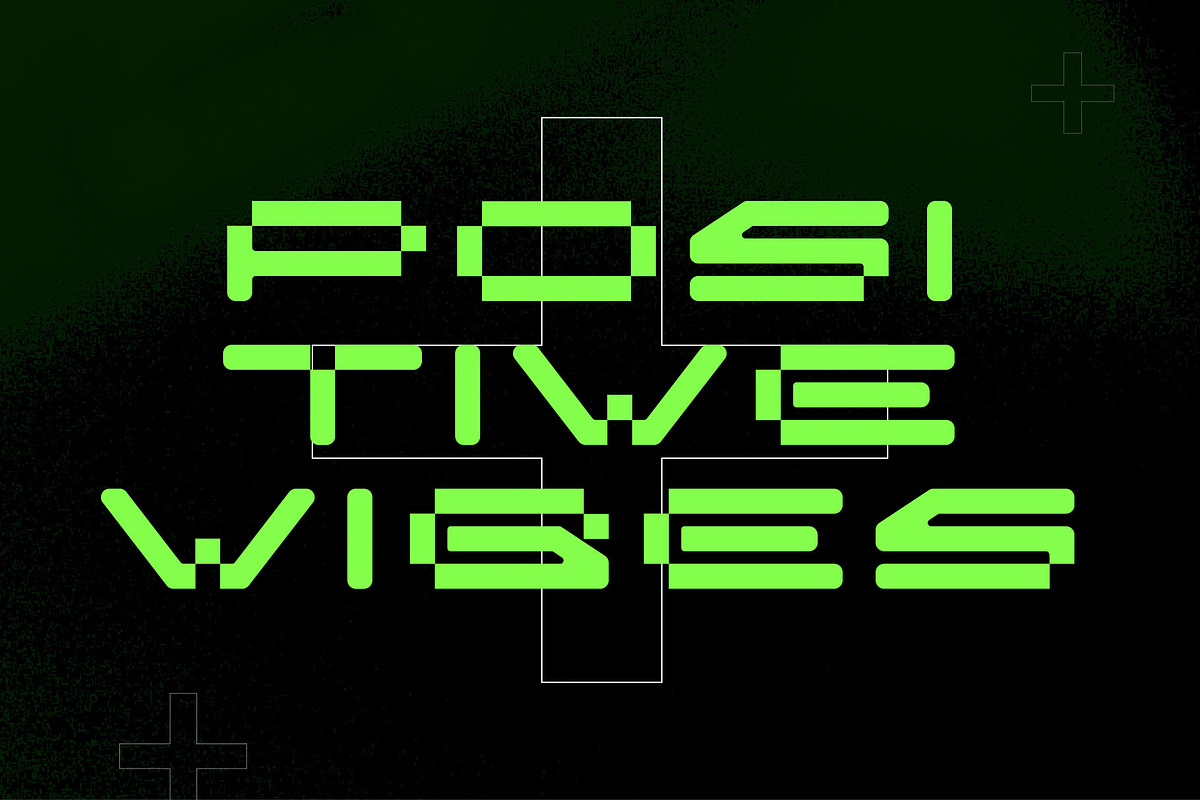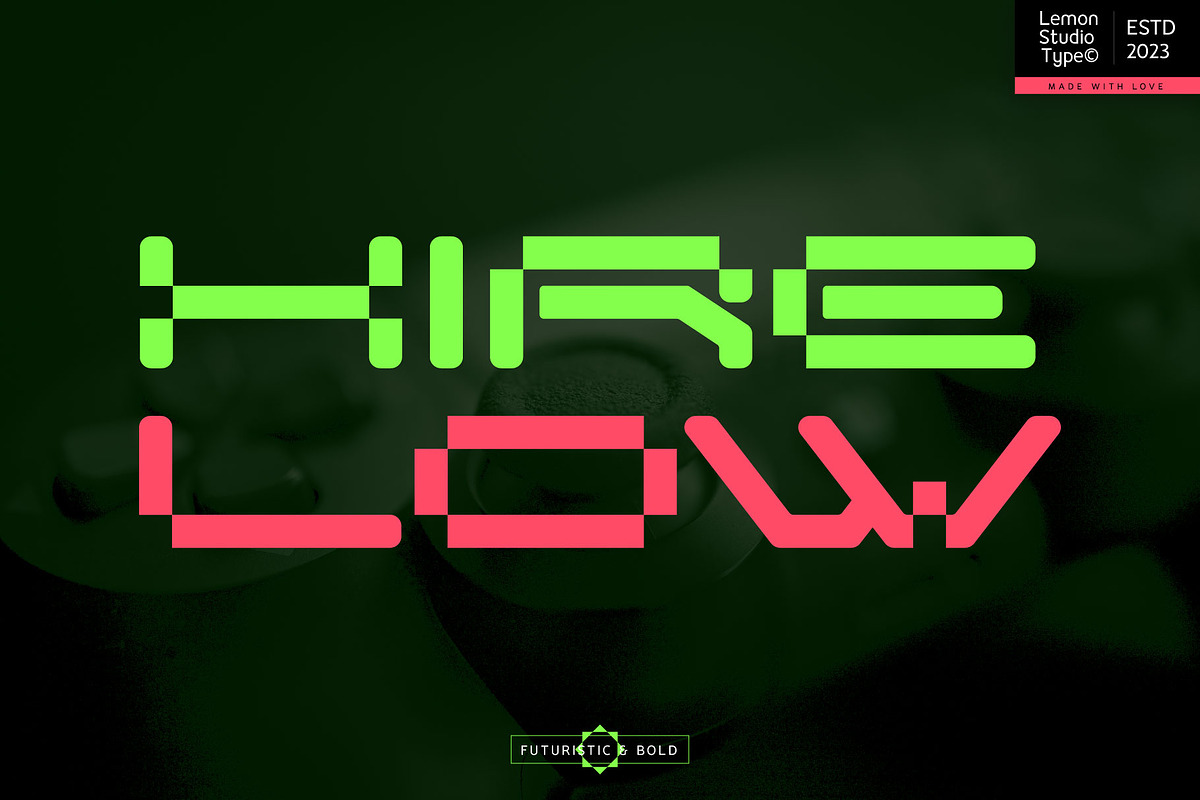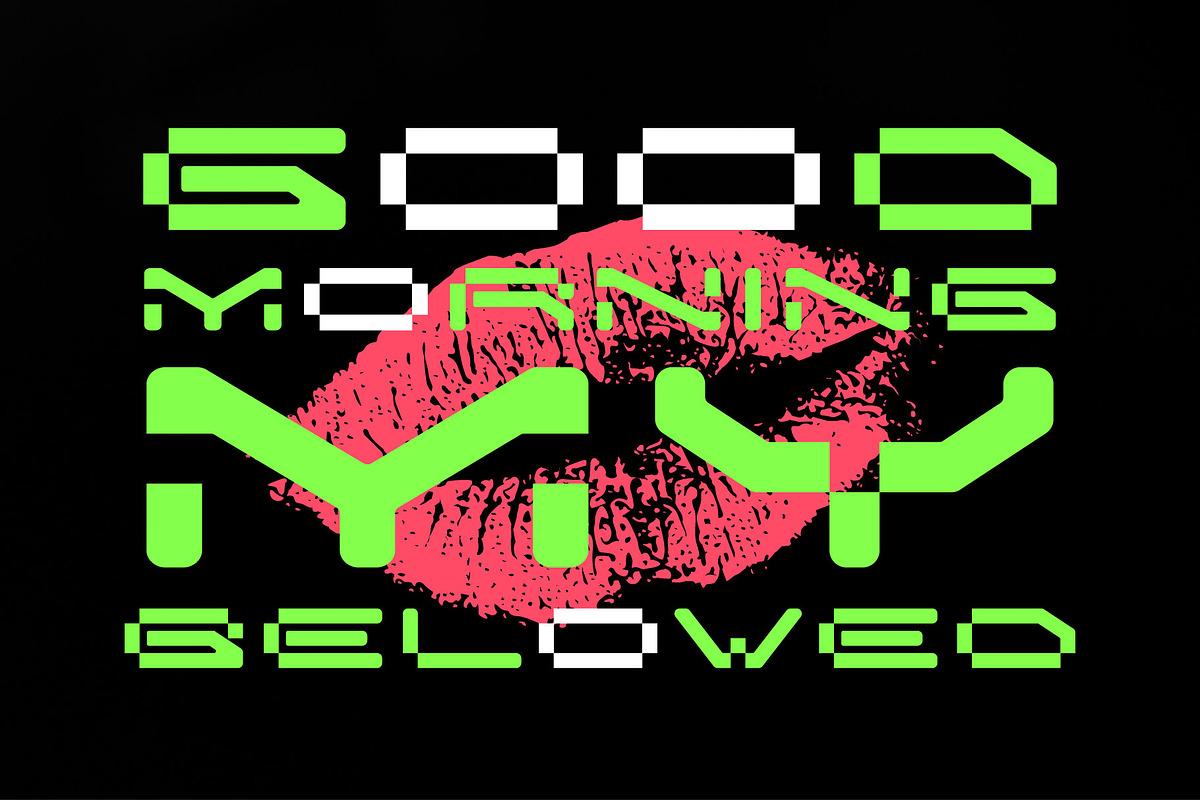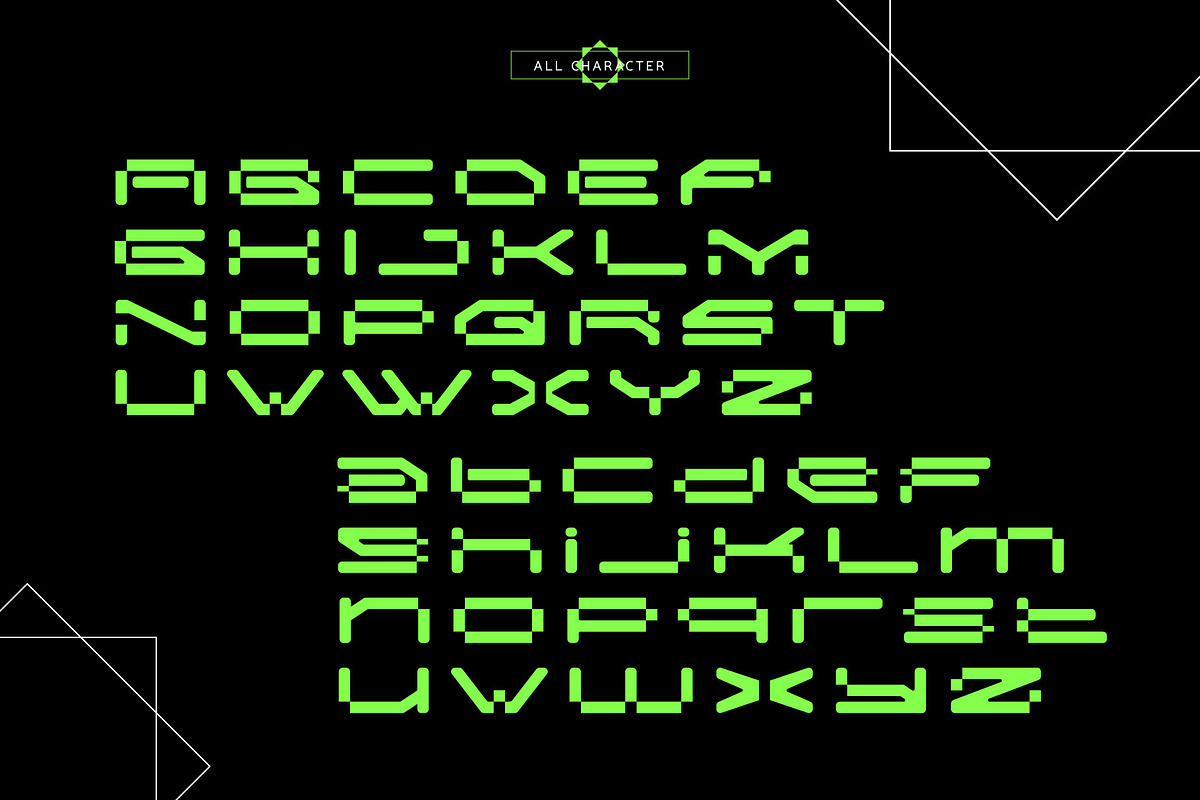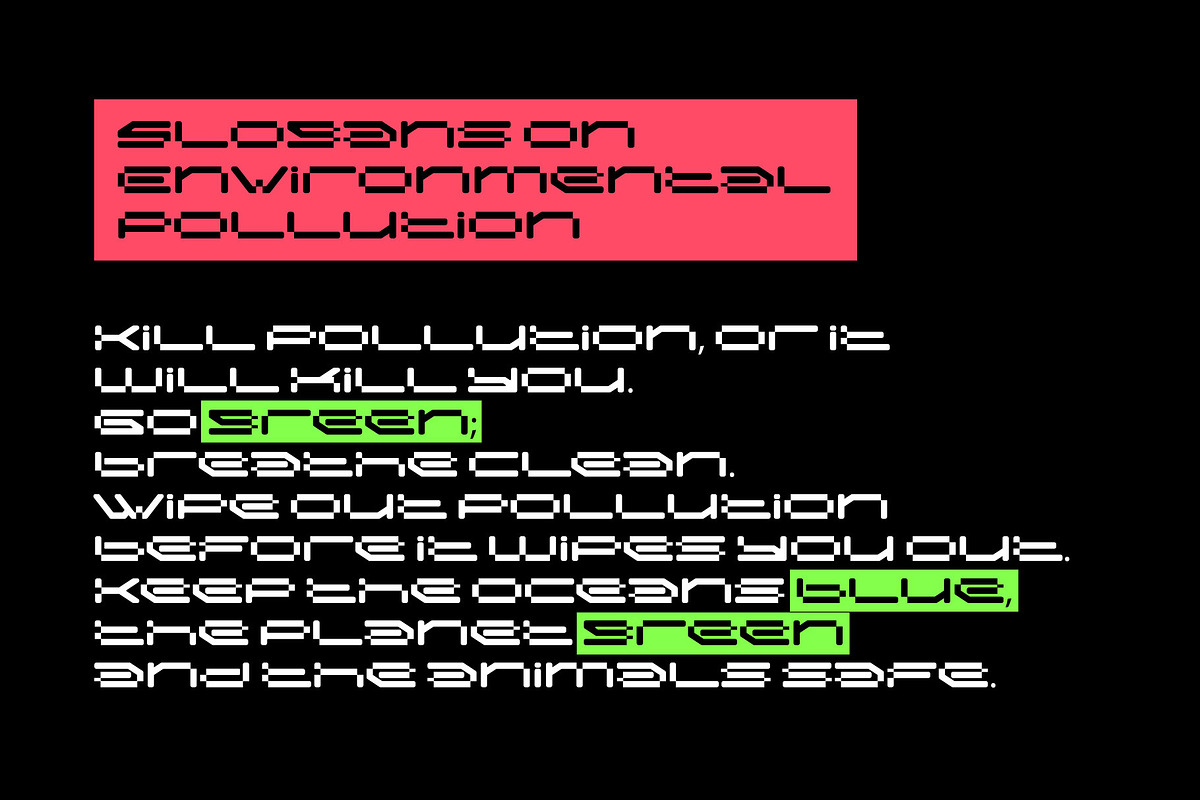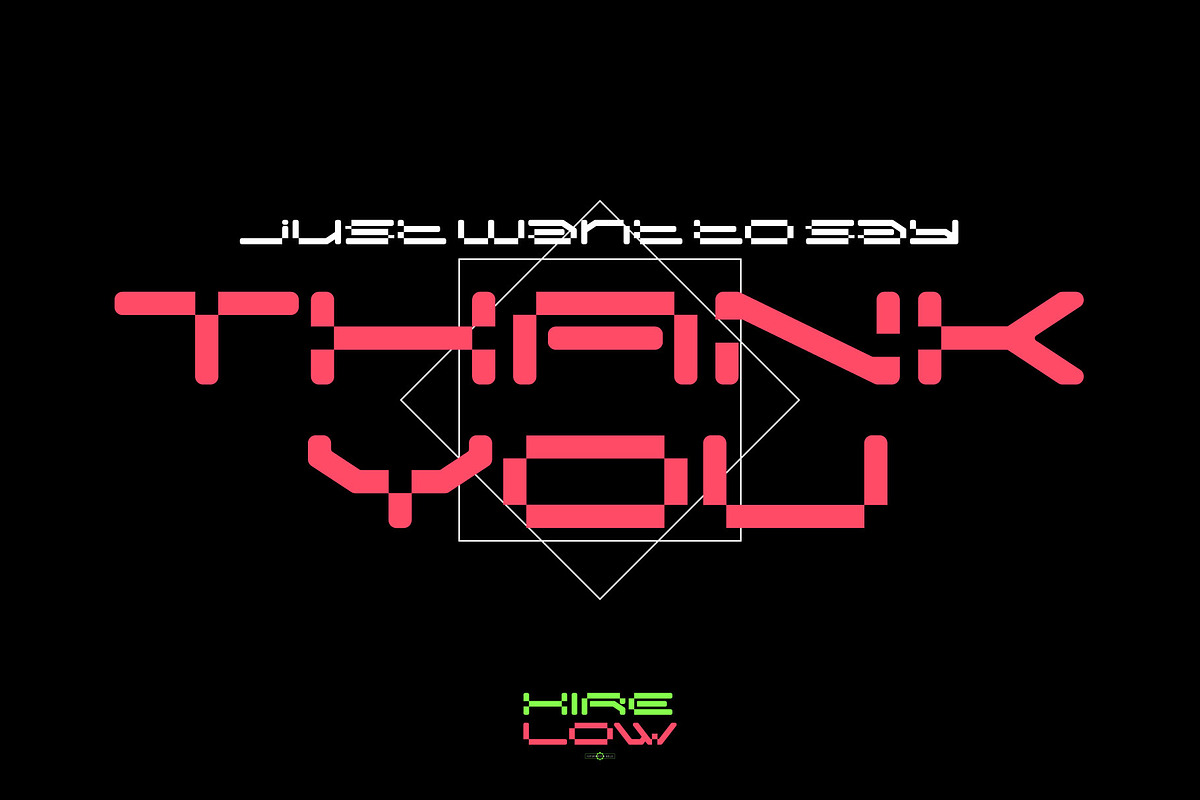
Hire Low - Futuristic Bold
Hire Low is a futuristic bold font with minimalist, wide letters by combining variations of element square. So perfect for those of you who want to make your design look more modern and still with a futuristic style.